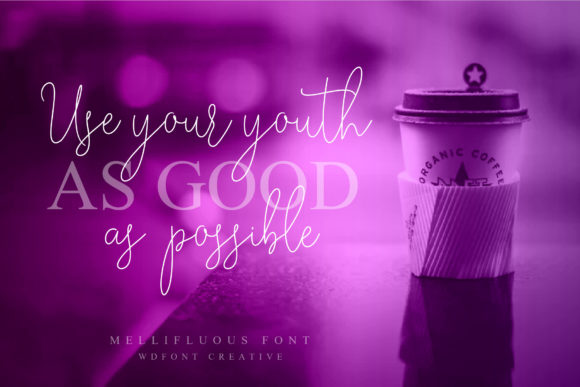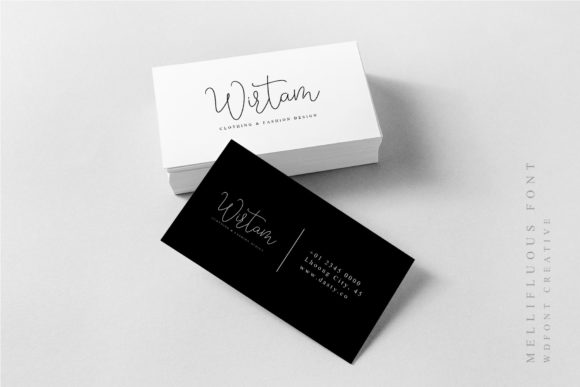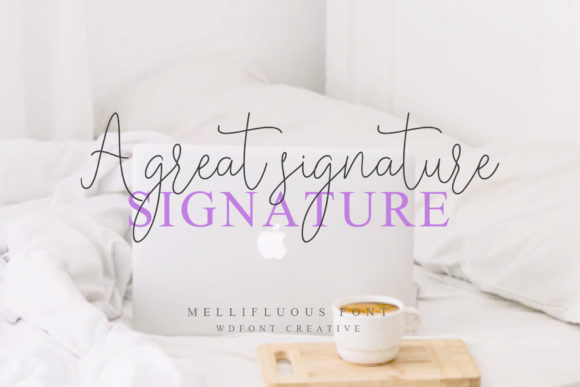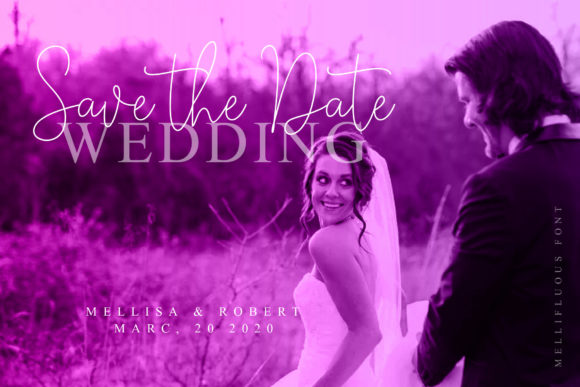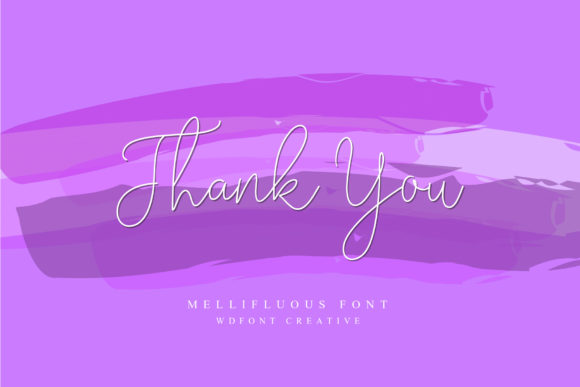
Mellifluous Font
About Mellifluous Font
Mellifluous is a unique, authentic and elegant handwritten font with a light touch. It will effortlessly turn any design idea into a stand out.